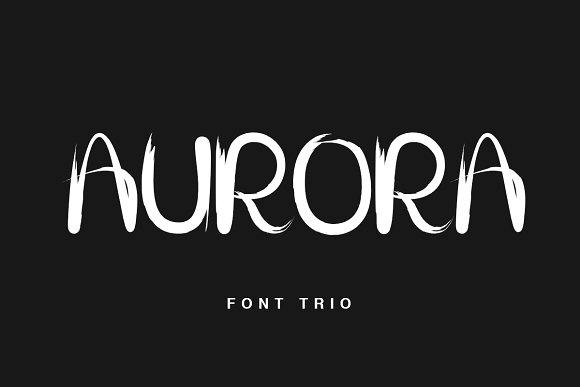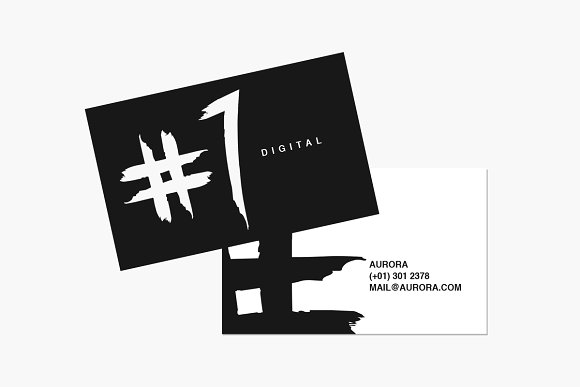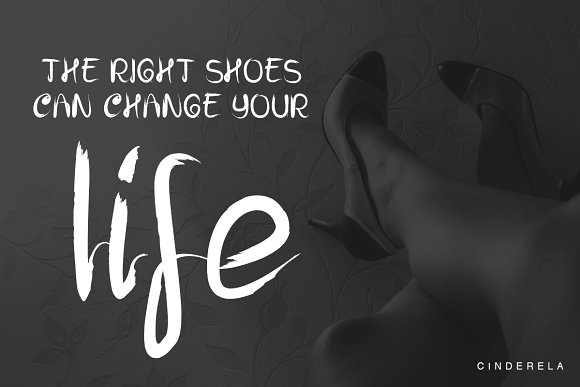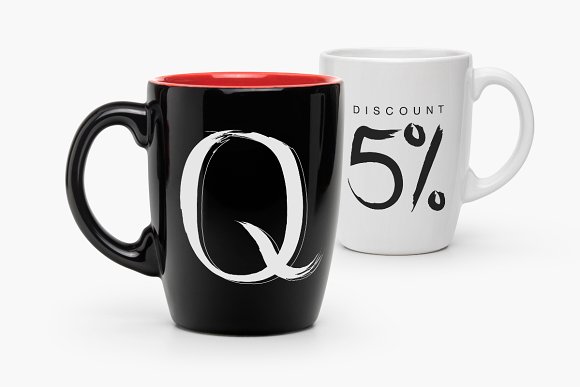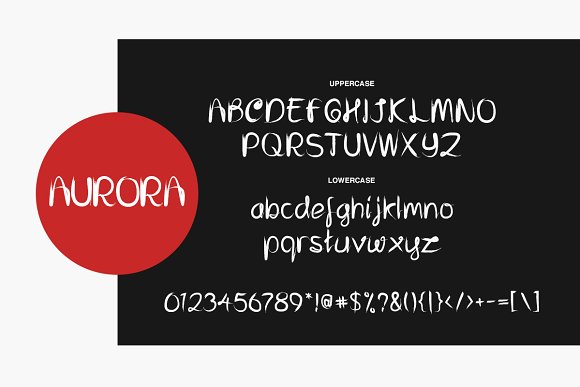
Aurora Font
About Aurora Font
The Aurora Font Trio is a stunning script font that features a unique calligraphy style.
It comes in 3 versions, regular, light and alternate.